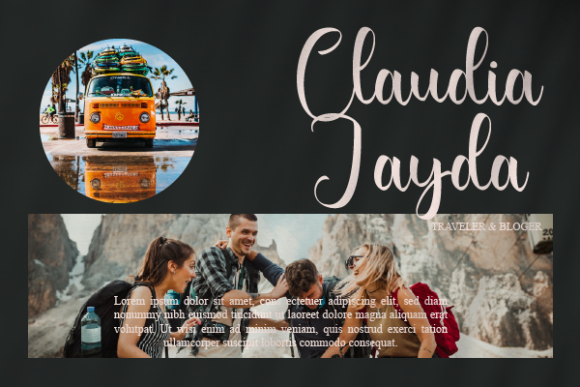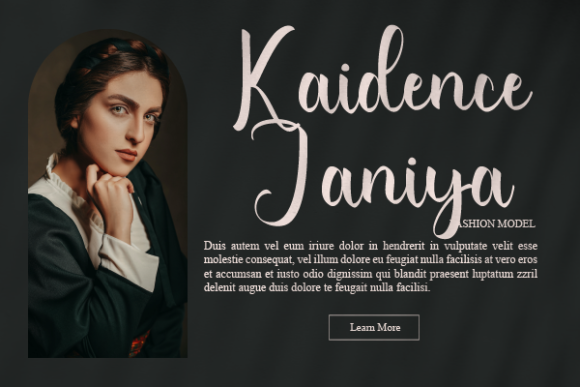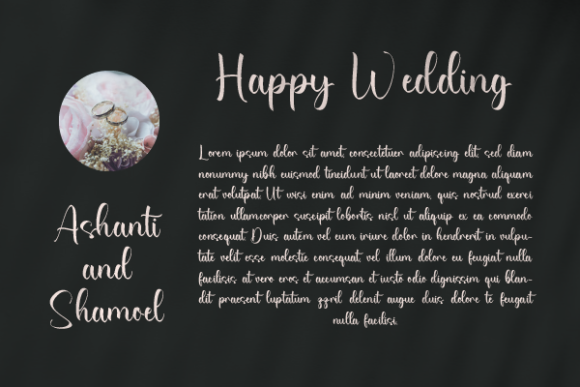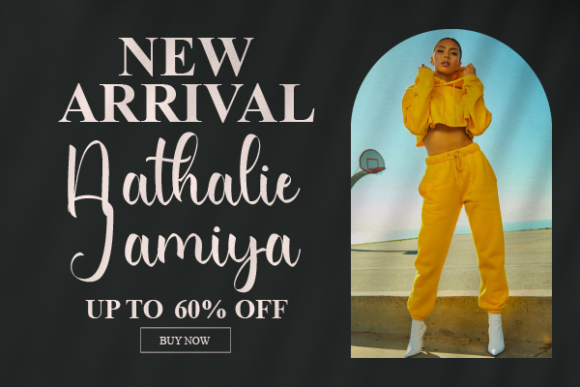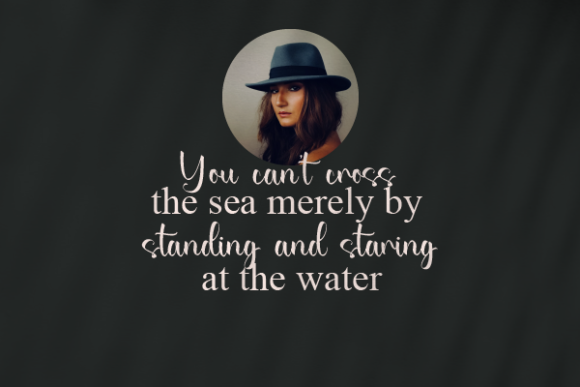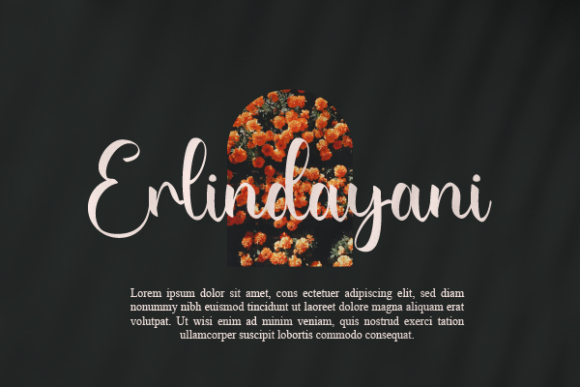
Introducing Charlie Shyanne Font: Elevate Your Designs with Elegance
Are you on the hunt for a font that exudes elegance, delicacy, and a touch of sophistication? Look no further than the Charlie Shyanne Font. This beautiful, handwritten font is designed to bring a level of refinement and poise to any design project. With its flowing lines and well-balanced characters, Charlie Shyanne is the perfect addition to a wide range of creative endeavors.
The Characteristics of Charlie Shyanne Font
Charlie Shyanne Font is characterized by its delicate and elegant appearance. Each letter is carefully crafted to ensure a smooth flow and harmonious balance, making it a versatile choice for various design applications. Whether you’re working on a logo, a wedding invitation, a branding project, or a digital platform, Charlie Shyanne can adapt and enhance your vision.
Why Choose Charlie Shyanne Font?
There are several reasons why designers and crafters should consider adding Charlie Shyanne Font to their toolkit:
- Versatility: Its elegant and flowing design makes it suitable for a broad spectrum of projects, from feminine and playful to sophisticated and corporate.
- Readability: Despite its delicate nature, Charlie Shyanne maintains high readability, ensuring your message is conveyed clearly and effectively.
- Uniqueness: Stand out from the crowd with a font that is both distinctive and captivating, adding a personal touch to your designs.
- Easy to Pair: Charlie Shyanne can be easily paired with other fonts to create stunning contrasts and visual hierarchies, offering endless possibilities for creative expression.
Applications of Charlie Shyanne Font
The applications of Charlie Shyanne Font are vast and varied. Here are a few ideas to get you started:
- Branding and Logos: Create a lasting impression with a logo that embodies elegance and sophistication.
- Wedding and Event Stationery: Add a touch of romance and whimsy to your invitations, menus, and place cards.
- Digital Platforms: Enhance your website, social media graphics, or digital advertisements with a font that speaks to a refined audience.
- Packaging: Stand out on store shelves with product packaging that exudes luxury and quality.
Tips for Using Charlie Shyanne Font Effectively
To make the most of Charlie Shyanne Font, consider the following tips:
- Experiment with Sizes: Play with different font sizes to create visual interest and hierarchy in your designs.
- Combine with Images: Pair Charlie Shyanne with high-quality images or illustrations to enhance the overall aesthetic of your project.
- Adjust Line Spacing: Ensure adequate line spacing to maintain readability and flow, especially in longer texts.
- Limit Color Palette: Stick to a limited color palette to maintain a cohesive and sophisticated look.
Charlie Shyanne Font is more than just a typeface; it’s a design element that can elevate your projects to new heights of elegance and sophistication. With its delicate, flowing lines and versatile nature, it’s an excellent choice for designers and crafters looking to add a touch of refinement to their work. Whether you’re creating branding materials, event stationery, or digital content, Charlie Shyanne Font is sure to make your designs come alive.